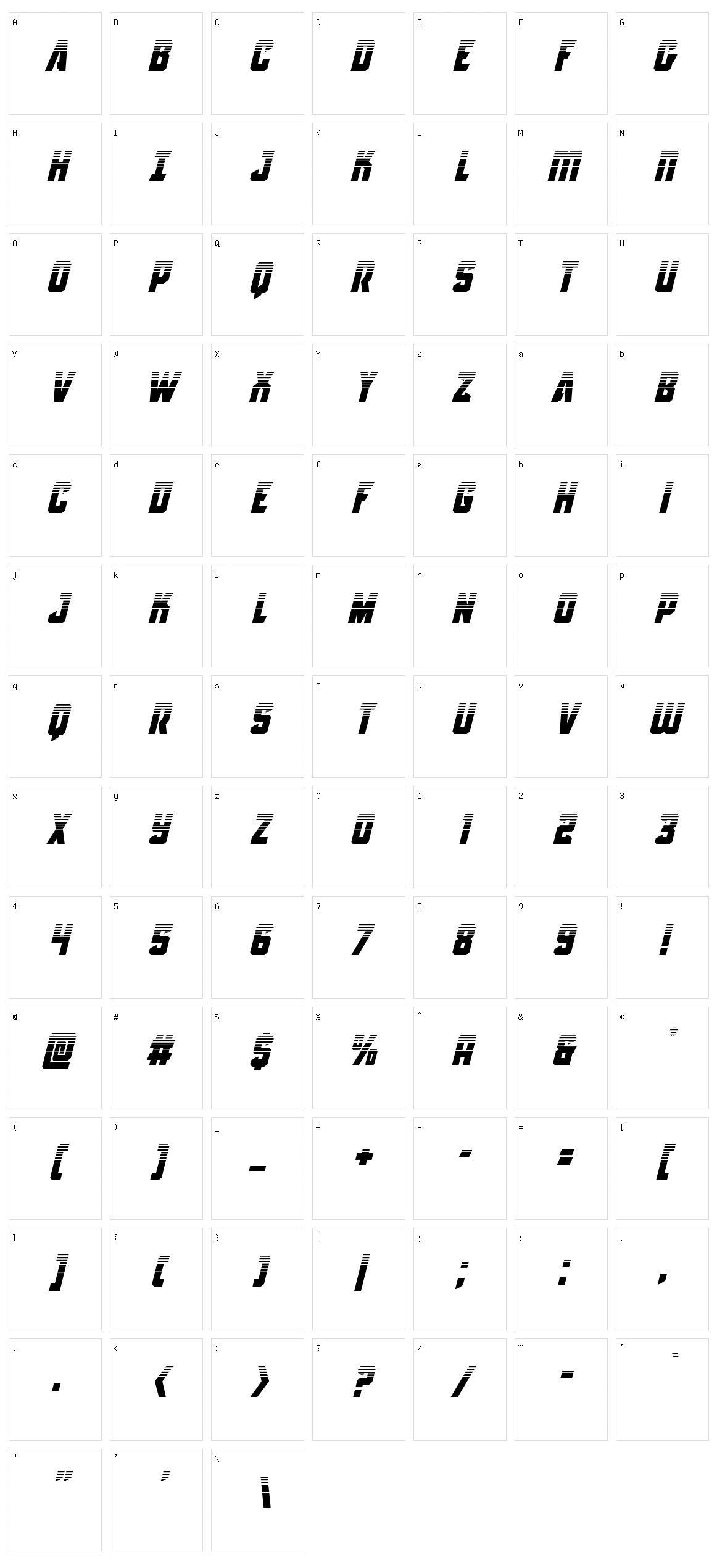
Antilles
This font comes with the following 29 versions: Regular, Italic, Condensed, Condensed Italic, Expanded, Expanded Italic, 3D, 3D Italic, Outline, Outline Italic, Laser, Laser Italic, Laser 3D, Laser 3D Italic, Gradient, Gradient Italic, Halftone, Halftone Italic, Academy, Academy Italic, Chrome, Chrome Italic, Platinum, Platinum Italic, Engraved, Engraved Italic, Semi-Italic, Super-Italic and Leftalic.